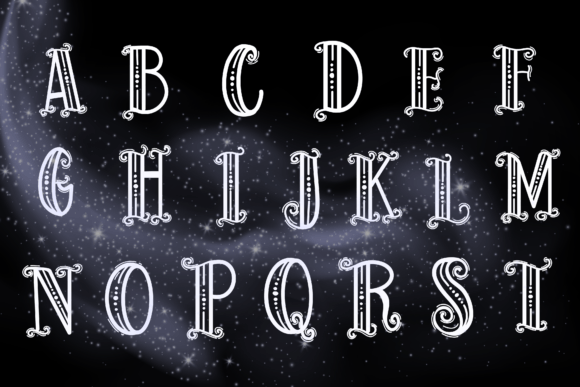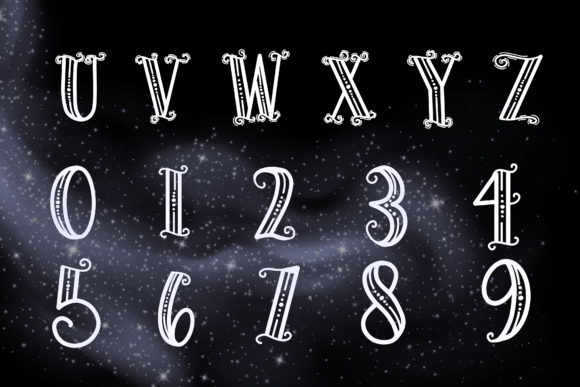
Magic Font
Unveil the charm of personal touch with Magic, a passionately handcrafted font. Its playful strokes are perfect for those meticulous note-taking habits, intimate diary entries, or heart-warming greeting card messages you love crafting. But Magic’s versatility doesn’t end there! This adaptable font adds a whimsical flair to banner designs, breathes life into content, and shares a cup of creativity when etched on mugs.
It’s simply delightful on greeting cards and irresistible on trend-topping t-shirts. Whether it’s stationery designs that need a bit of a ‘pen-friend’ or social media posts calling for a lively touch, Magic carries the wand! Breathe life into the mundane with the whimsical turnings of the Magic handwritten font!